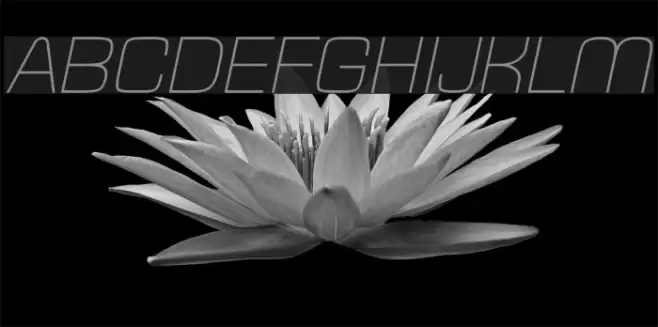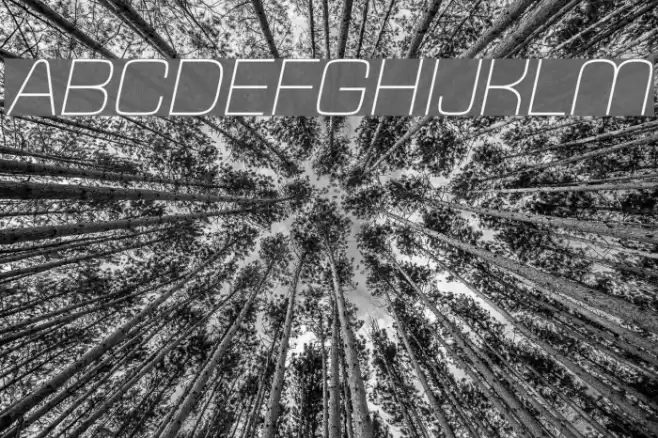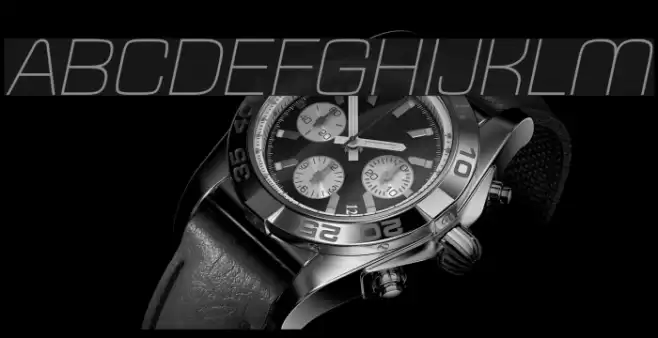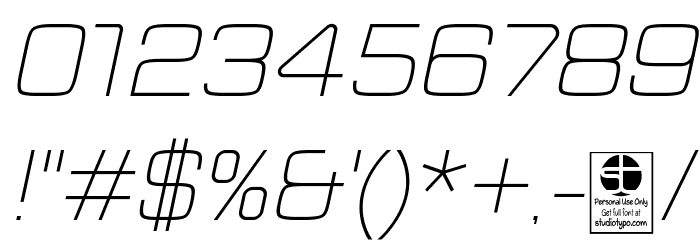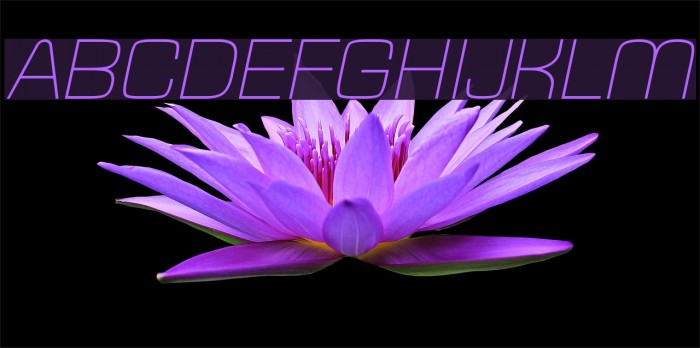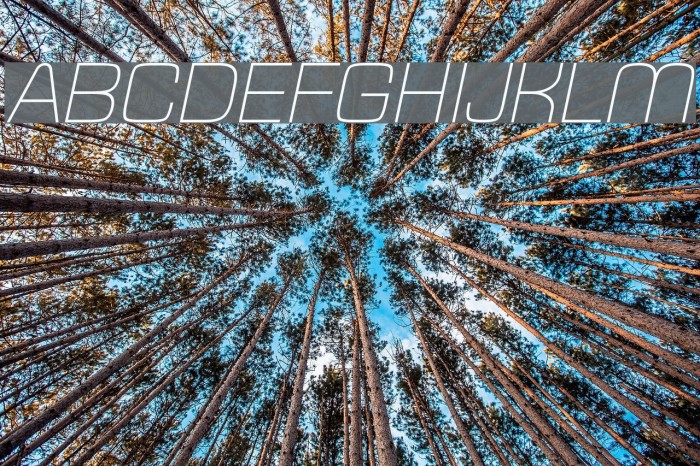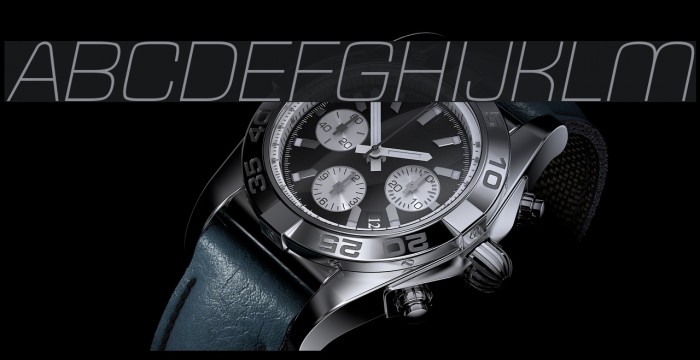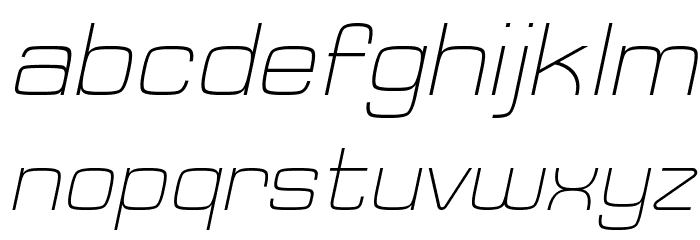
Typo Square Light Italic Demo
This font features a sleek, modern design with a light and airy feel. The characters are italicized, giving them a dynamic and forward-leaning appearance. The strokes are thin and consistent, contributing to a minimalist aesthetic. The font maintains a geometric structure, with rounded edges and a uniform line weight that enhances readability. The spacing between characters is balanced, ensuring clarity and legibility across different sizes. This style is ideal for projects that require a contemporary and sophisticated look.
A modern, light, and italicized font with a sleek geometric design.
- Proposed Projects: Ideal for branding, modern web design, tech-related projects, and minimalist posters.
- Weight: Light
- Use Case: Headlines, Logos, Display text